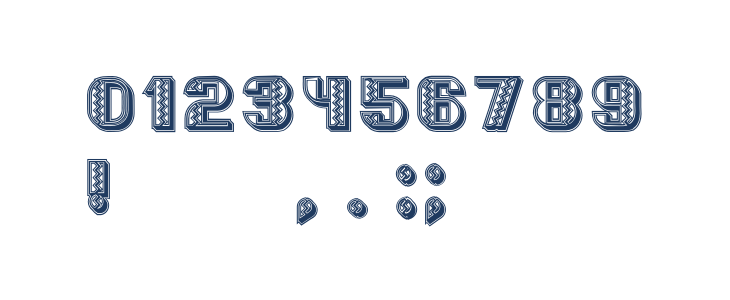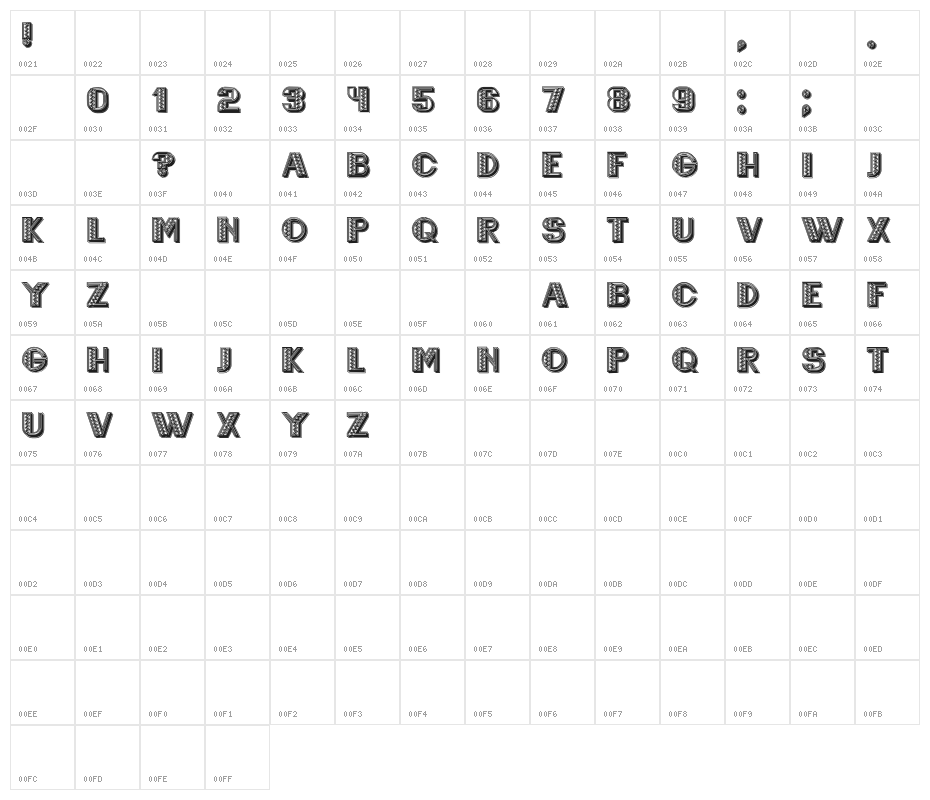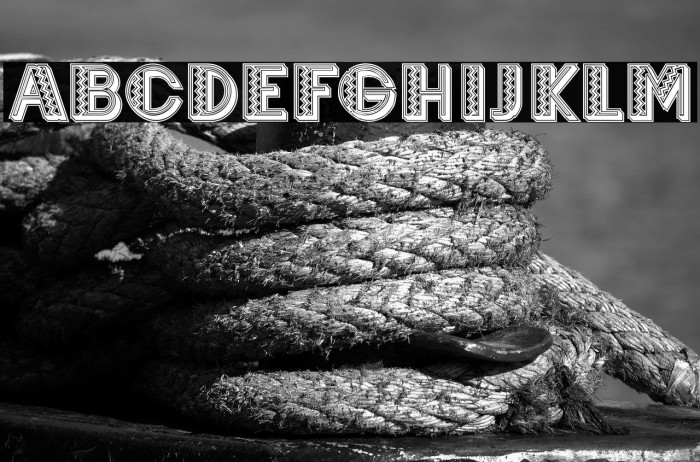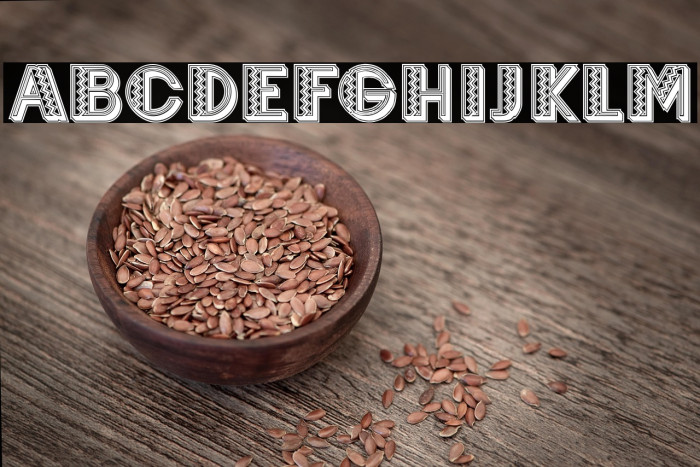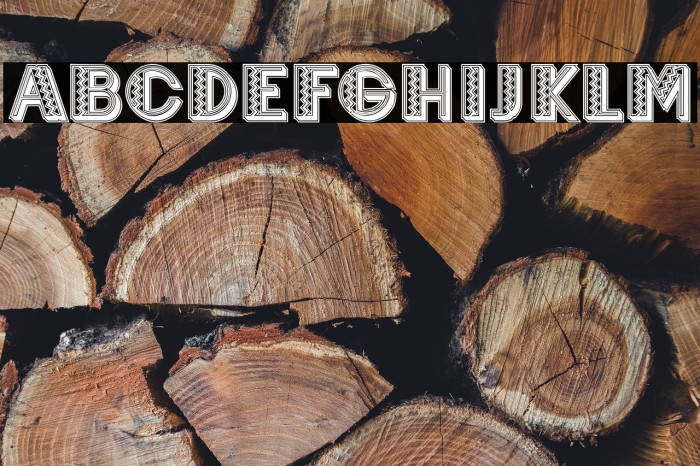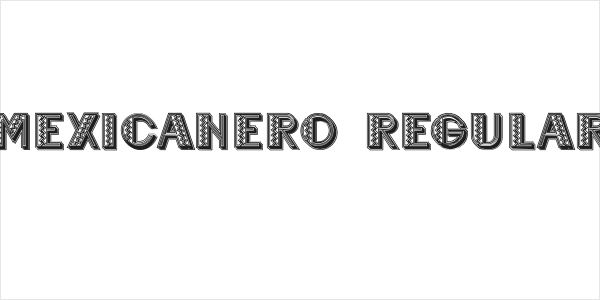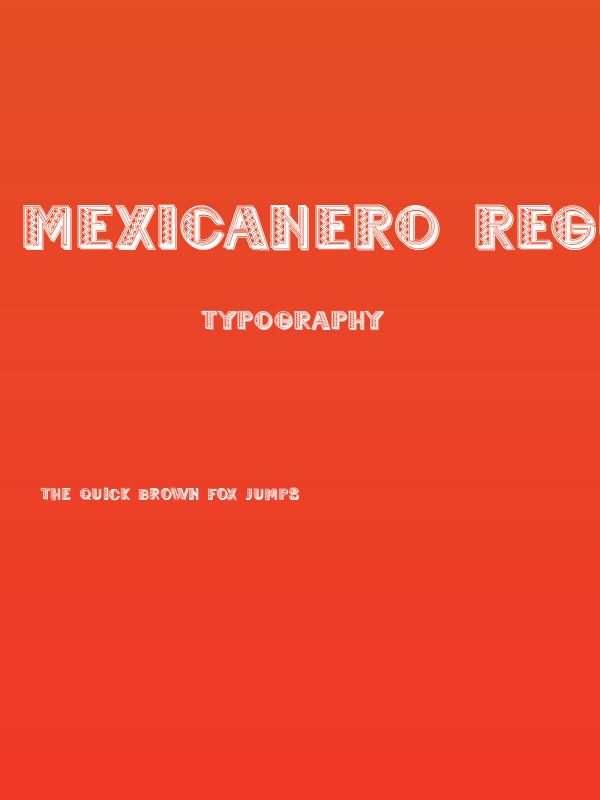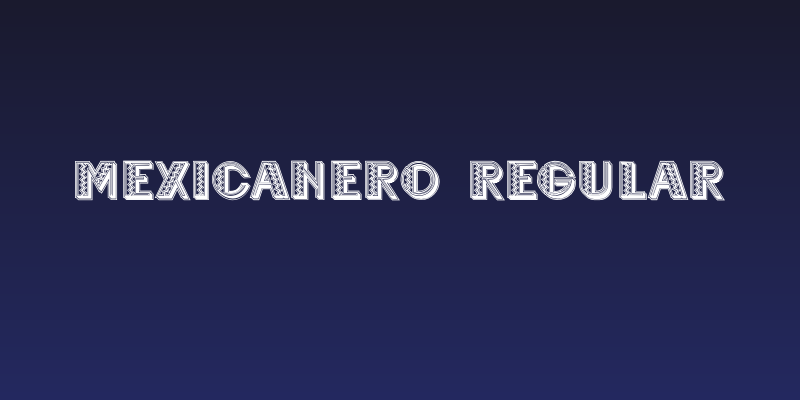
Mexicanero Regular Font
Mexicanero Regular Description
This font features a bold, decorative style with intricate patterns inside each character, reminiscent of traditional Mexican art. The letters are capitalized and have a three-dimensional appearance with shadowing effects that add depth. The design includes geometric and zigzag patterns, giving it a vibrant and festive look. The numbers and special characters follow the same decorative theme, ensuring consistency across all glyphs. This font is ideal for projects that require a cultural or festive touch, such as event posters, themed invitations, or branding for cultural events.
| Proposed Projects | Ideal for cultural event posters, themed invitations, and branding that requires a festive touch. |